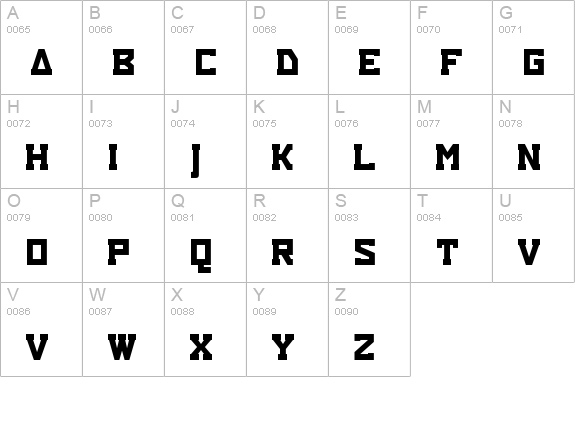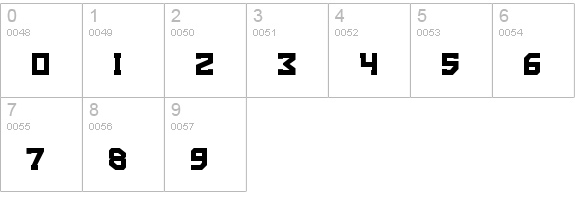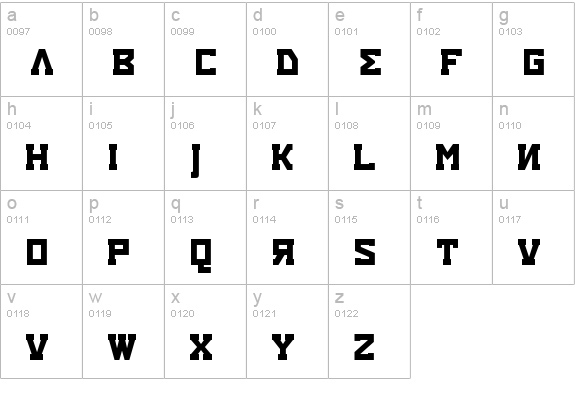
Eurocentric Font Details
Eurocentric font is a modern and stylish typeface that exudes a European flair with its clean lines and elegant design. This versatile font is perfect for a wide range of projects, from branding to editorial design. Its sharp angles and contemporary feel make it a standout choice for anyone looking to add a touch of sophistication to their work. The best part is that Eurocentric font is completely free to download at FontsMarket.com, making it accessible to everyone who wants to elevate their designs with this sleek and professional typeface. Whether you're working on a website, poster, logo, or any other creative project, Eurocentric font is sure to make a bold statement and leave a lasting impression on your audience. Download it today and start creating stunning visuals with this beautiful and versatile font.